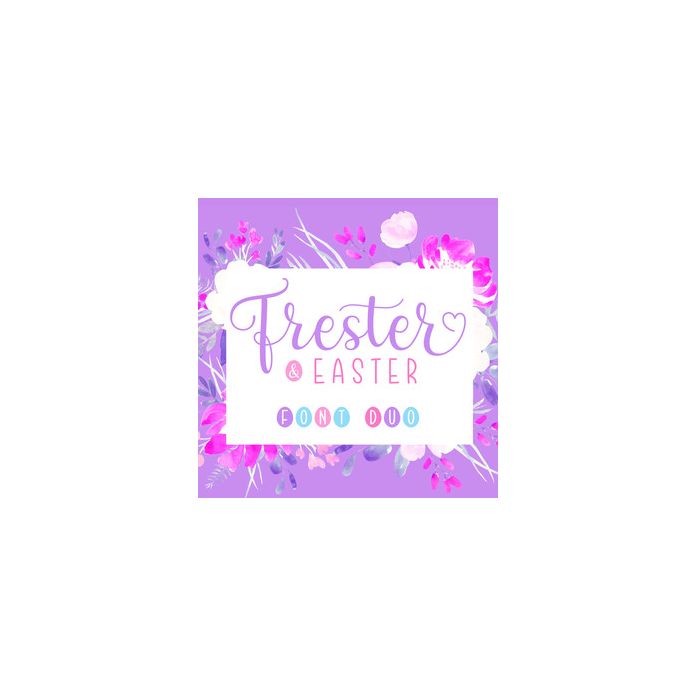
The Frester & Easter is an amazing font duo. It comes in an elegant script version and a striking serif version. Both styles can be combined perfectly but are also great as strong stand-alones, giving you the opportunity to create multiple unique designs in an instant.